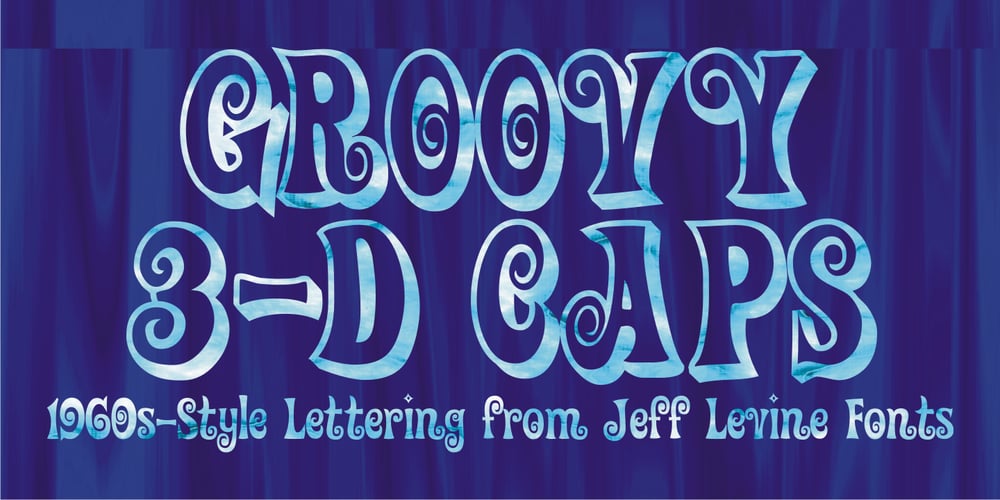
Groovy 3D Caps JNL Font Family was designed by Jeff Levine and published by Jeff Levine. Groovy 3D Caps JNL contains 1 styles and family package options. It all started with a simple idea back in 1998: do a digital version of a “lost” 70’s typeface, and make up the missing letters that were not present in the only available example Jeff Levine had to work with. Jeff wasn’t yet doing his own digital font creation, so he hooked up with Brad Nelson who owns a small foundry called Brain Eaters Fonts. Together, they collaborated on “Action Is”- a freeware font named after the source of the type example. This was a title page for a commemorative photo album of images from the 60’s TV music show “Where the Action Is”, formerly hosted by Jeff’s employer at the time, singer-writer-producer Steve Alaimo. The free font took off like a rocket, being released just at the peak of the 60’s/70’s retro craze in the late 1990’s, and it was EVERYWHERE! It showed up on TV shows, packaging and web design — and was even spotted on signage used on the side of a major amusement resort’s retro-themed hotel. From that point on, Jeff kept getting requests for a version with a lower case. Although they shared the copyright in the freeware version, Brad Nelson gave Jeff his blessing to re-work and take Action Is into the realm of commercial type. Newly improved and re-released as Groovy Happening JNL, it became one of Jeff’s better selling type designs. A simplified, yet similar font was issued called Groovy Summer JNL. Now, after about a decade, Jeff had decided to clean up the 3-D (drop shadow) version that was originally freeware with many minute design flaws and re-release it commercially. Groovy 3D Caps JNL is an all-caps, limited character set font which ties in well with the previous releases, yet retains itís 1960s-1970s era charm. The font flag art is courtesy of Barbara D. Berney and is used by permission.